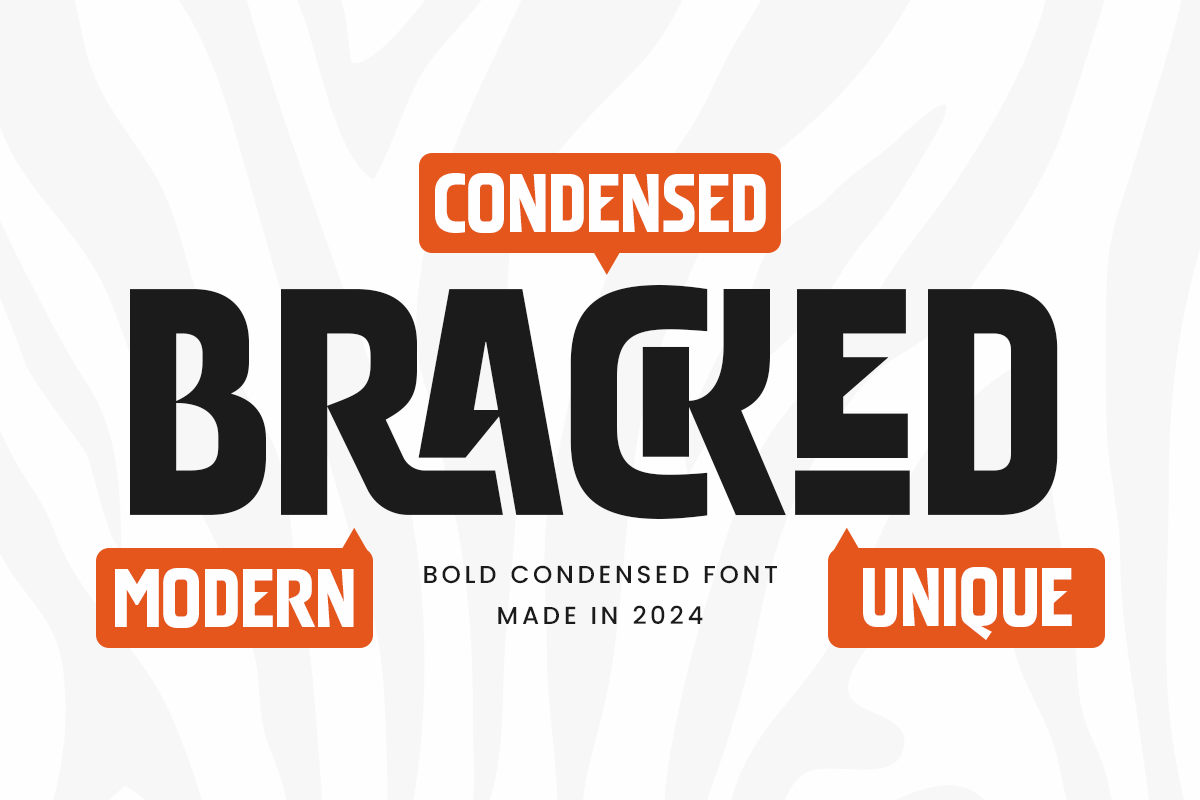
Bracked
-Bold Condensed FontBracked is a bold condensed font tailored for modern and impactful display use. With its strong and commanding presence, Bracked excels in delivering attention-grabbing headlines, branding projects, and posters that need to stand out. Its well-defined, compact letterforms make it perfect for designs that need to communicate power and clarity without taking up excessive space.
Inspired by contemporary typographic trends, Bracked merges bold aesthetics with legibility, making it versatile for both print and digital media. Whether used for magazine titles, website headers, or promotional materials, Bracked ensures your message resonates with precision and strength.
Bracked's unique condensed style brings a professional and sleek edge to any project. It's an ideal choice for creatives looking for a modern typeface that leaves a lasting impression and pairs seamlessly with other design elements.
Bracked Bold Condensed Font Features:
Distinctive Bold Condensed Characters